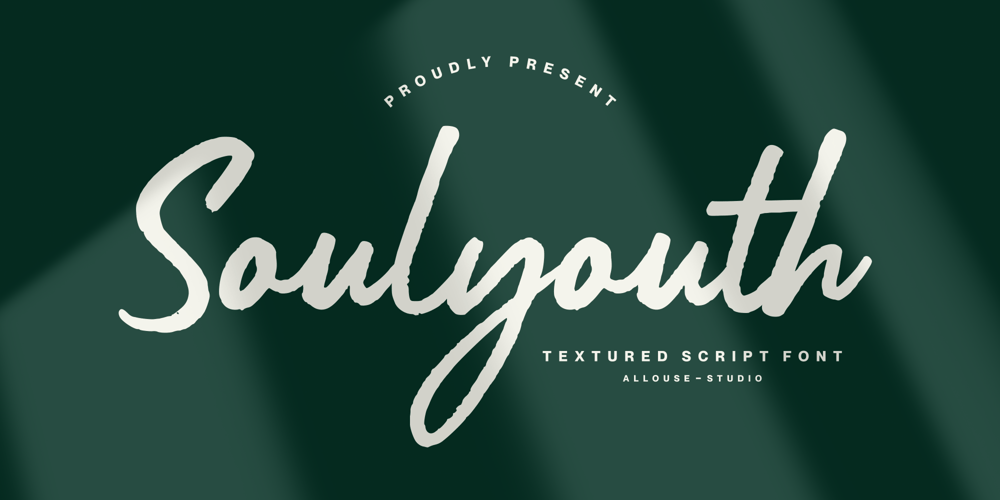
Soulyouth Font Family was designed by Fachrizal Yusuf and published by Allouse Studio. Soulyouth contains 1 styles and family package options. Proudly Presenting, Soulyouth A Textured Script FontSoulyouth is suitable for any titles, logo, product packaging, branding project, megazine, social media, wedding, or just used to express words above the background.Soulyouth also come with Multi-Lingual Support.Enjoy the font, feel free to comment or feedback, send me PM or email. Thank You!